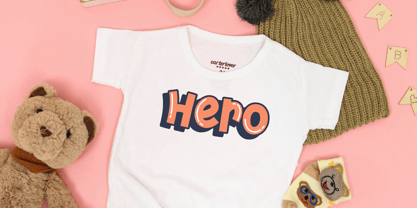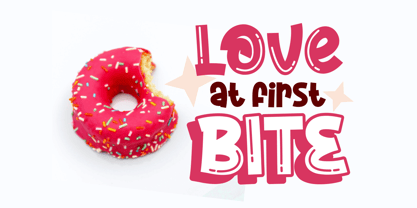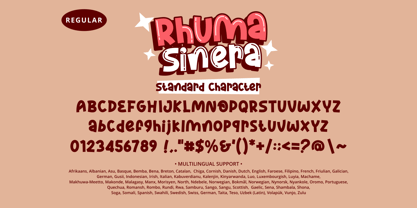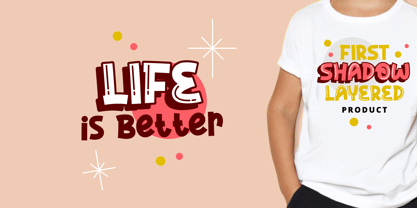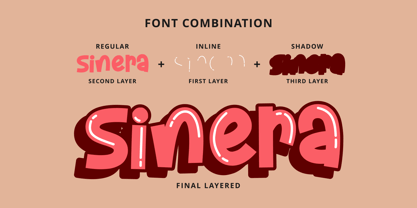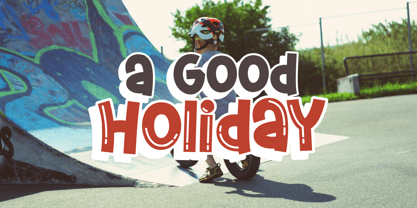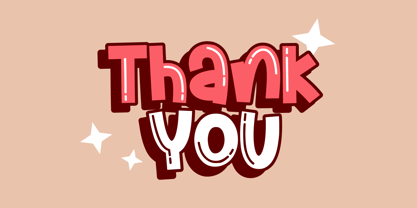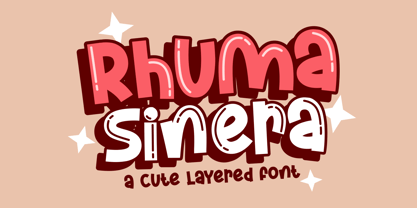
Rhuma Sinera
von Mabhal Studio
Die Schriftfamilie Rhuma Sinera wurde von Abdullah Mabhal entworfen und von Mabhal Studio veröffentlicht. Rhuma Sinera enthält 3 Stile und Familienpaketoptionen. Mehr über diese Familie
Rhuma Sinera is a cool, friendly, and eye-catching display font designed to bring fun and personality to your creative projects. With its bold shapes and playful character, this font instantly adds a cheerful and energetic touch to any design. Rhuma Sinera is perfect for cartoon-related artwork, children's games, educational materials, funny quotes, product packaging, book covers, posters, headlines, social media graphics, and branding projects that need a lively appearance. Its unique letterforms are easy to read while maintaining a distinctive and memorable style, making your text stand out effortlessly. Whether you're creating designs for kids, entertainment content, party invitations, or creative marketing materials, Rhuma Sinera delivers a joyful and engaging look. Add a sense of fun, imagination, and creativity to your projects with this versatile display font that is suitable for both personal and commercial design needs.
Designer: Abdullah Mabhal
Foundry: Mabhal Studio